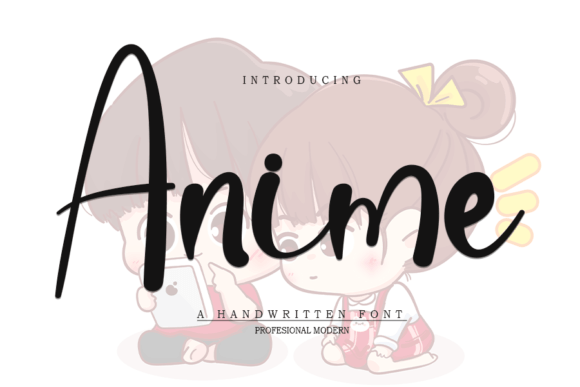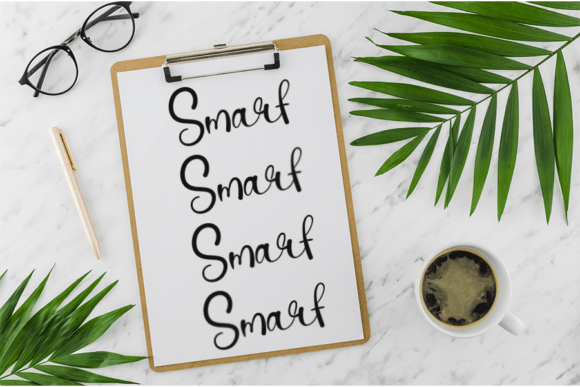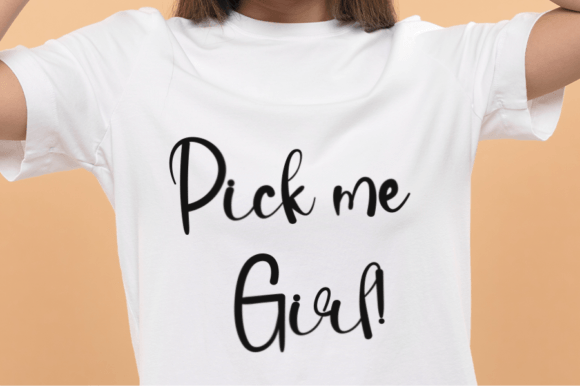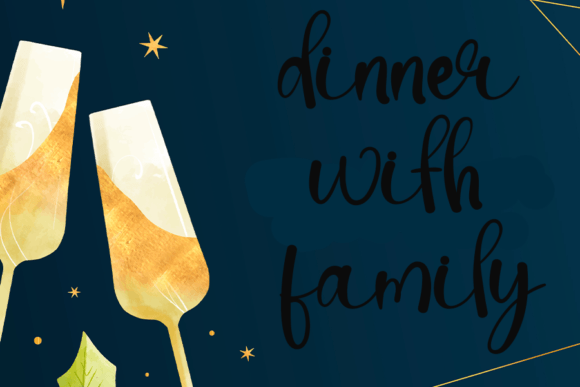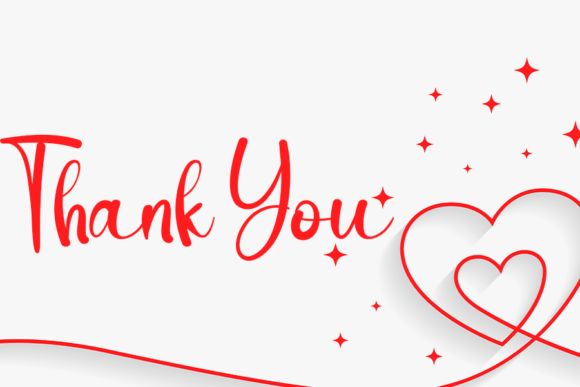
Anime Font
Add a stylish touch to your creative projects with the Anime font. This handwritten script features a contemporary atmosphere and impeccable form. Inspired by timeless classic calligraphy, it brings elegance and charm to your designs.
The Anime font is balanced and varied, making it suitable for many applications. You can use it for logos, invitations, branding, social media posts, packaging, and more. Its unique style enhances the beauty of every project.
Each character in the Anime font is carefully crafted. The smooth, flowing strokes give your designs a polished and refined look. Moreover, this font balances readability with artistic flair, making it perfect for headlines, quotes, and decorative text.
Despite its decorative style, the Animefont maintains excellent readability. Whether used for large titles or subtle accents, it adapts well to all your design needs. Its versatility makes it a great choice for a wide range of creative projects.
Using the Anime font will help your work stand out. It adds sophistication and uniqueness. If you want your designs to look professional yet stylish, the Animefont is an excellent option.
In summary, the Animefont suits many design applications. From branding to social media and packaging, it brings elegance and character. Download it today and create memorable, beautiful designs with a stylish handwritten script.